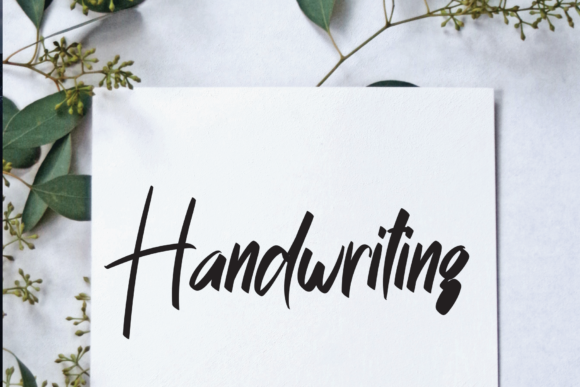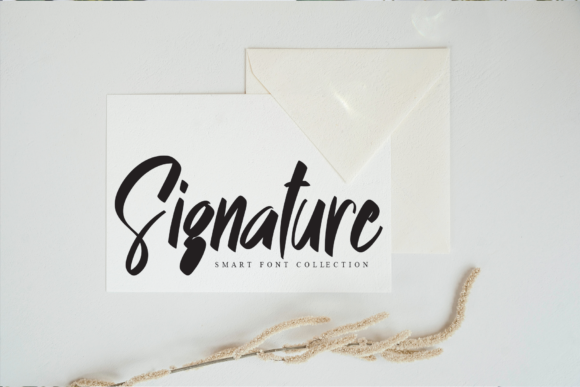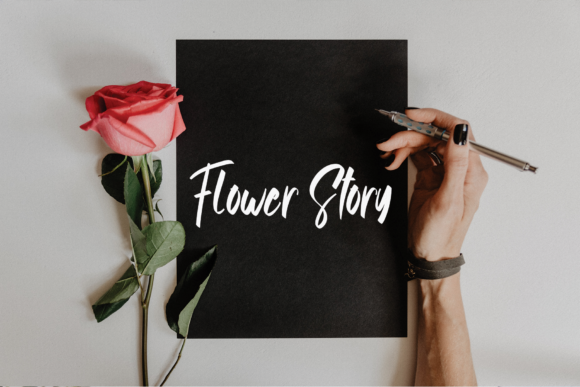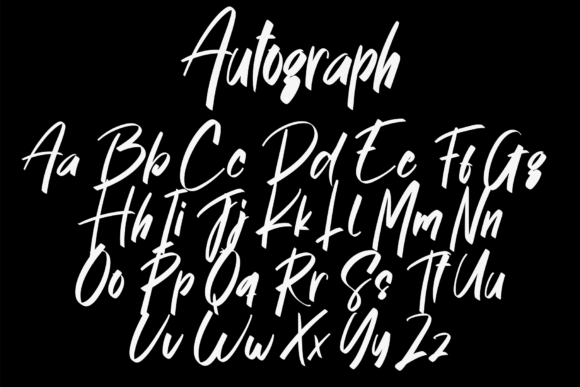
Unleash Your Creativity with the Timeless Charm of Autograph Font
There’s something special about capturing a moment in time – a smile, a laughter, or a heartfelt message. As a designer, you’ve likely experienced that rush of creativity when you stumble upon the perfect font to bring your vision to life. For many, that font is the Autograph Font, a sweet and nostalgic handwritten typeface that exudes romance and modernity.
With its elegant, flowing lines and subtle imperfections, the Autograph Font is the perfect choice for designers looking to add a touch of whimsy and personality to their creations. Whether you’re crafting a wedding invitation, a birthday card, or a digital art piece, this font has the power to transform your design into a true work of art. Its versatility and charm make it a valuable asset for any designer looking to elevate their projects and leave a lasting impression.
Key Features of Autograph Font
- Font Family: Autograph is a script font designed to resemble a handwritten signature.
- Unique Characteristics: Autograph font features a flowing, cursive design with subtle variations in letterform and stroke width, giving it a personal and elegant touch.
Autograph Font Review
As a designer, I was excited to dive into the Autograph Font, a beautiful script font that promises to elevate your typography game. Here’s my honest review of what works well and what doesn’t.
- Unique and elegant design: The Autograph Font has a distinct, handwritten feel that sets it apart from other script fonts.
- High-quality glyphs: The font includes a wide range of characters, including ligatures, swashes, and ornaments, making it perfect for invitations, certificates, and other formal documents.
- Great for elegant typography: The Autograph Font is ideal for projects that require a touch of sophistication and refinement, such as wedding invitations, luxury branding, and high-end marketing materials.
- Limited font weights: The Autograph Font only comes in a few weights, which might limit its versatility in certain design projects.
- No italic or oblique styles: The font only includes upright styles, which might not be suitable for certain design applications.
- Potential for overuse: The Autograph Font’s elegant design might lead to overuse in certain design projects, making it lose its impact and uniqueness.
The Autograph Font is a beautiful and elegant script font that excels in formal and sophisticated design projects. While it has some limitations, it’s a great addition to any designer’s toolkit. With proper usage and restraint, the Autograph Font can elevate your typography game and make your designs stand out.
Use the Autograph font for creative projects, such as:
- Personalized invitations or greeting cards
- Customized gift tags or labels
- Wedding or event signage
- Artistic typography or calligraphy
Remember to experiment with different font sizes, colors, and effects to get the most out of the Autograph font.